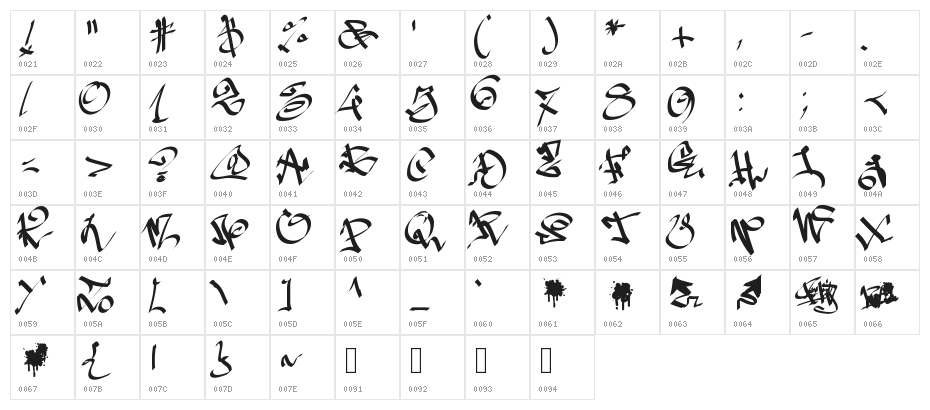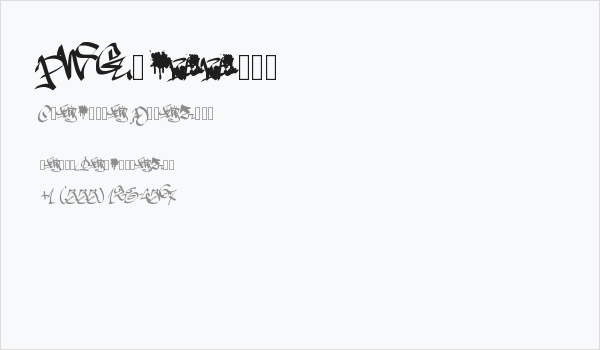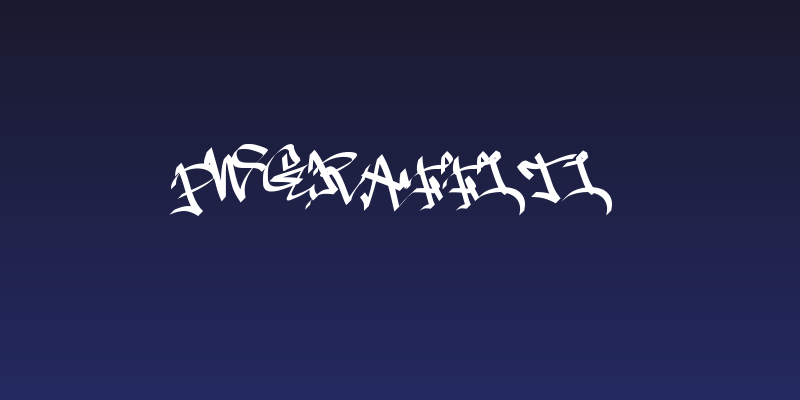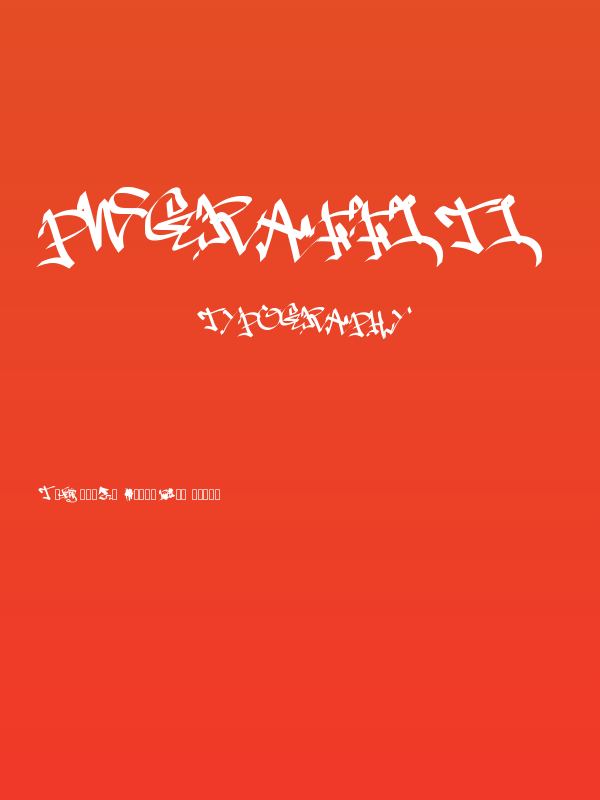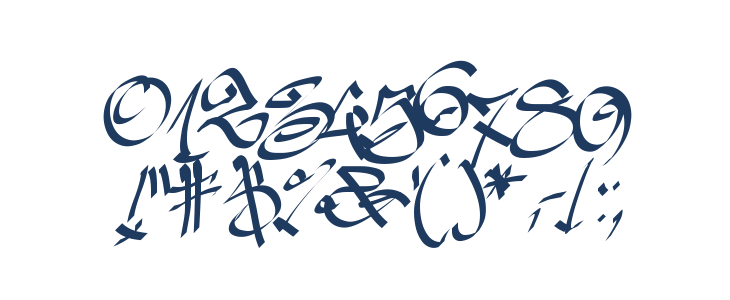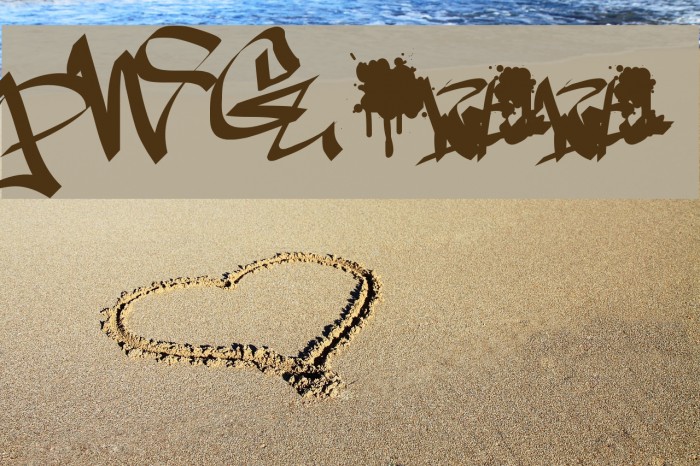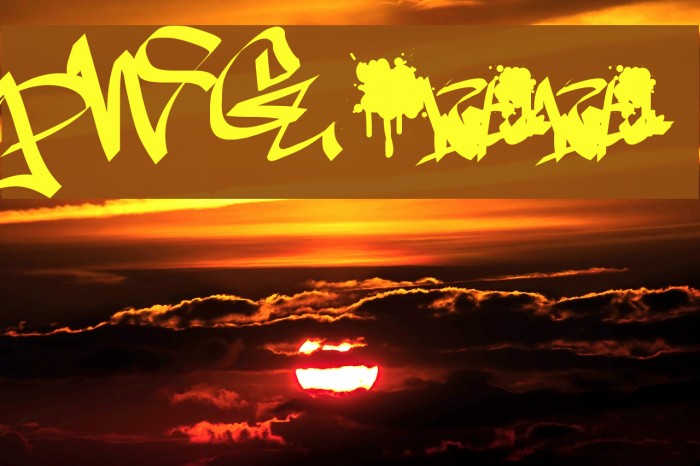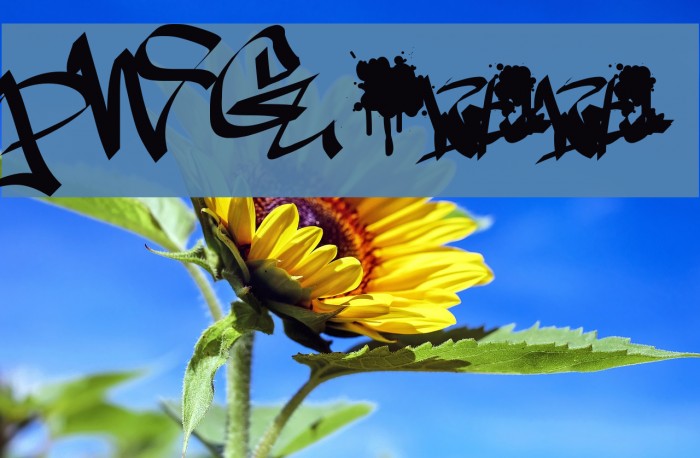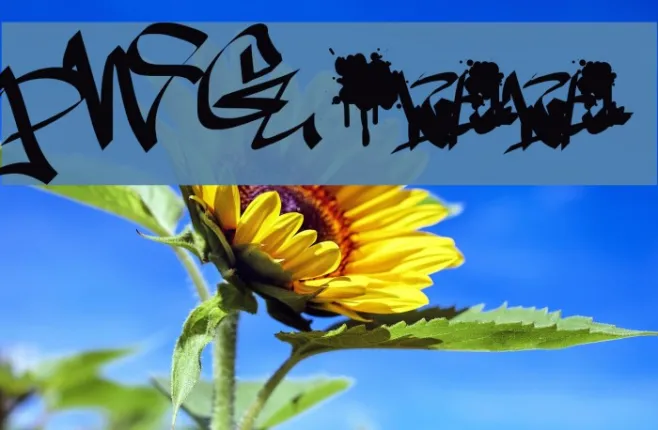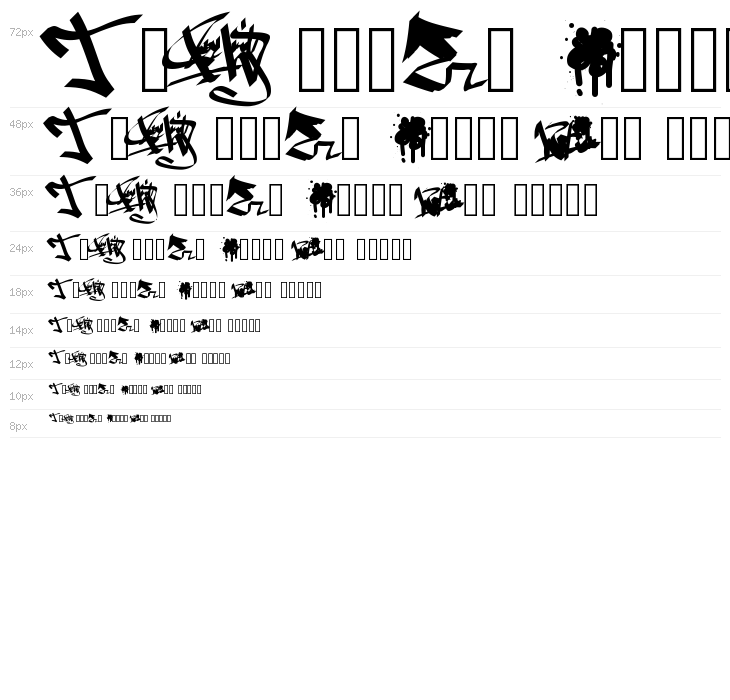
PWGraffiti Font
PWGraffiti Description
This font embodies the raw, expressive style of urban graffiti art. Each character is crafted with dynamic strokes and sharp angles, capturing the rebellious spirit of street culture. The uppercase letters are bold and commanding, while the lowercase letters maintain a fluidity that suggests movement and spontaneity. Numbers and special characters are equally stylized, adding to the overall edgy and artistic feel. The font's design is reminiscent of spray-painted tags, with some characters featuring splatter effects that enhance its authenticity. It's a perfect choice for projects seeking to convey a sense of urban grit and creativity.
| Overall Style | Urban, Artistic, Rebellious |
| Use Case | Logos, Posters, Headlines |
| Proposed Projects | Ideal for streetwear branding, music album covers, urban event posters, and graffiti art projects. |